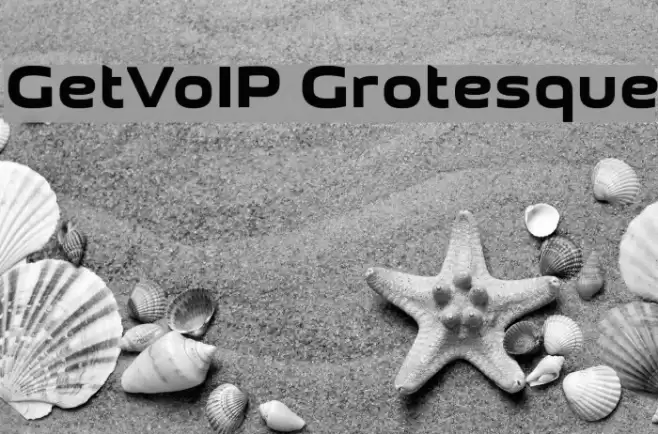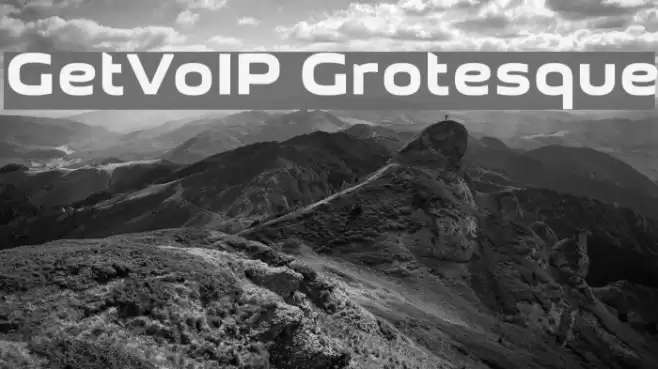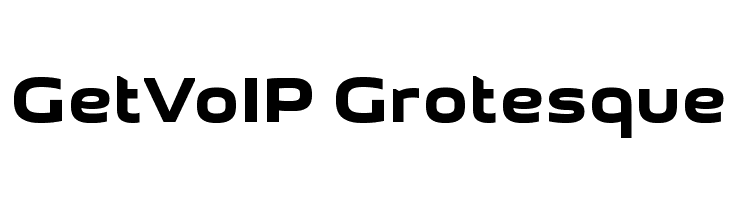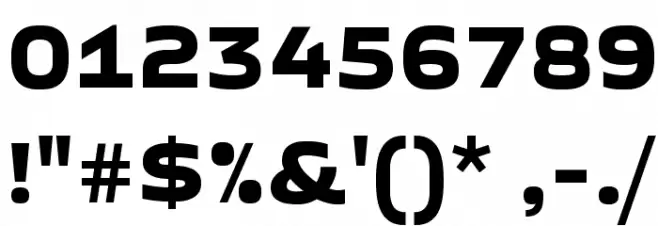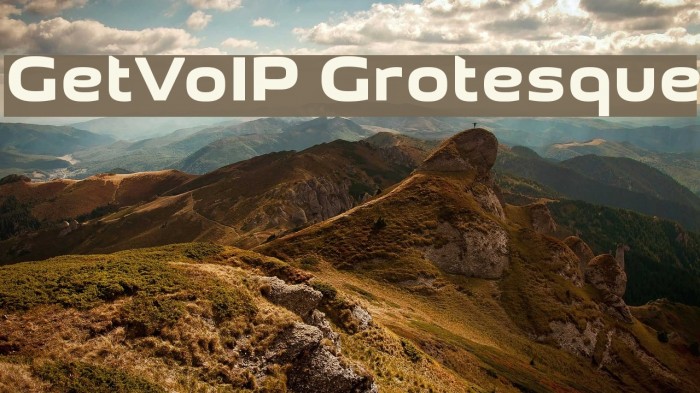
GetVoIP Grotesque Font
GetVoIP Grotesque Description
This font exhibits a bold and modern sans-serif style with clean lines and a strong presence. The characters are well-defined with a consistent stroke width, giving it a uniform appearance. The uppercase and lowercase letters maintain a geometric structure, enhancing readability and making it suitable for various applications. The numerals are clear and distinct, while the special characters are designed to complement the overall aesthetic. The font's simplicity and clarity make it versatile for both digital and print media.
A bold, modern sans-serif font with clean lines and geometric structure from Uncategorized fonts.
- Proposed Projects: Ideal for branding, advertising, web design, and editorial projects where a modern and bold statement is needed.